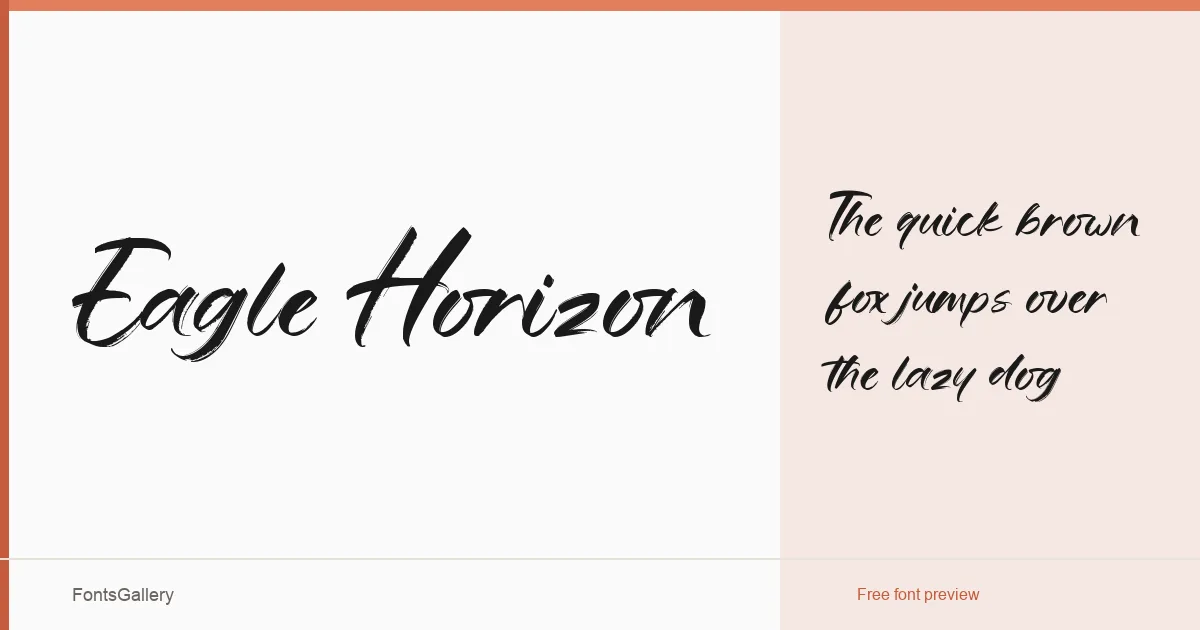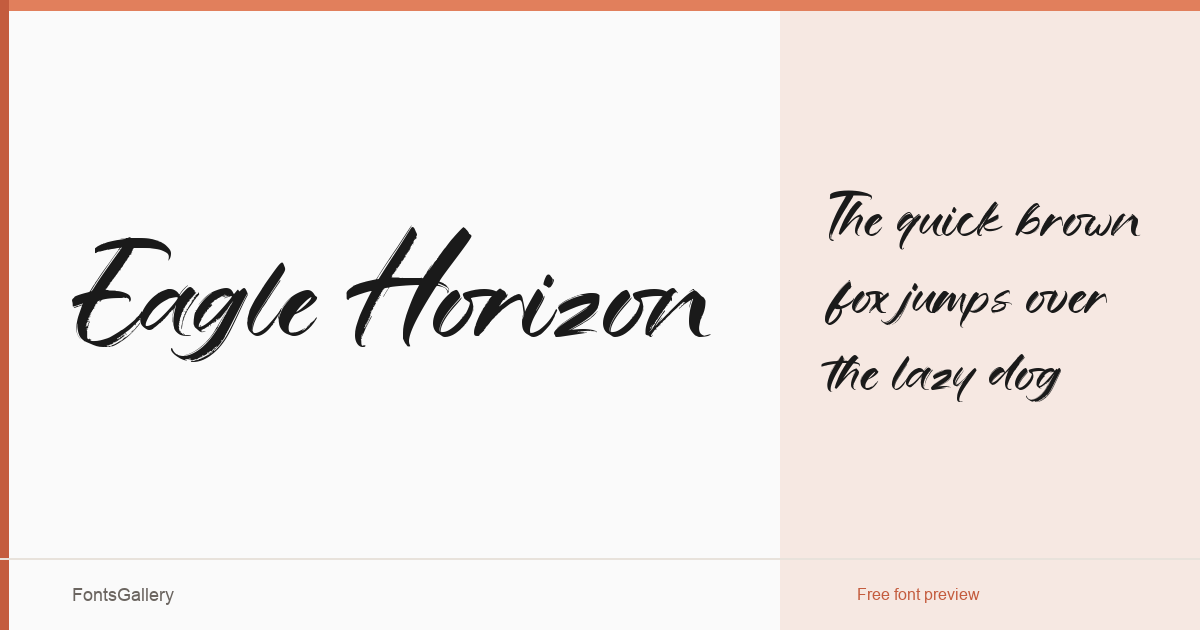
About Eagle Horizon Font
Eagle Horizon is a script typeface crafted by Letterara, designed to evoke elegance, romance, and timeless classic charm. Its flowing letterforms make it an expressive choice for projects that call for sophistication and warmth. The font carries a graceful personality that feels both refined and deeply personal.
Eagle Horizon features the fluid, connected strokes characteristic of elegant script typography, lending each letterform a romantic and classic quality. The graceful curves and carefully considered letterforms work together to create a sense of timeless beauty and refined artistry. Its classic script sensibility makes it immediately recognizable as a font suited for elevated, heartfelt design work.
Eagle Horizon shines in applications such as wedding stationery, invitation cards, greeting cards, logos, and branding projects where an elegant and romantic tone is desired. Its expressive script style pairs beautifully with the clean, structured letterforms of Aresink or Helvetica, creating a balanced contrast between personality and clarity. This versatility makes it a strong choice for both personal and branded visual communication.